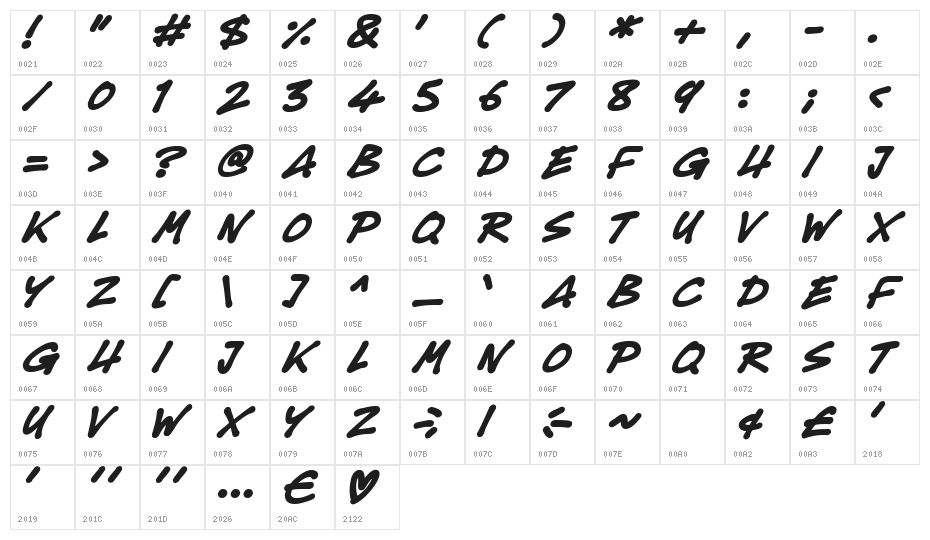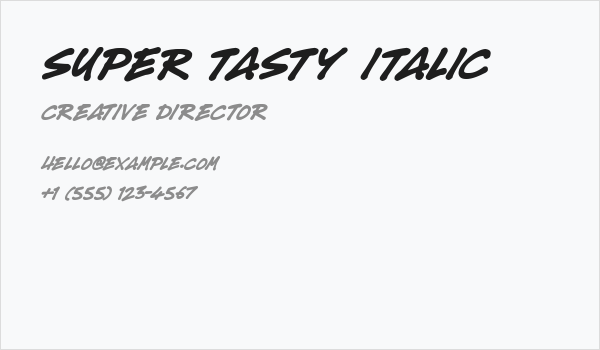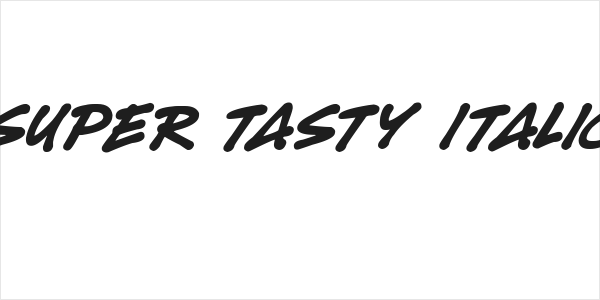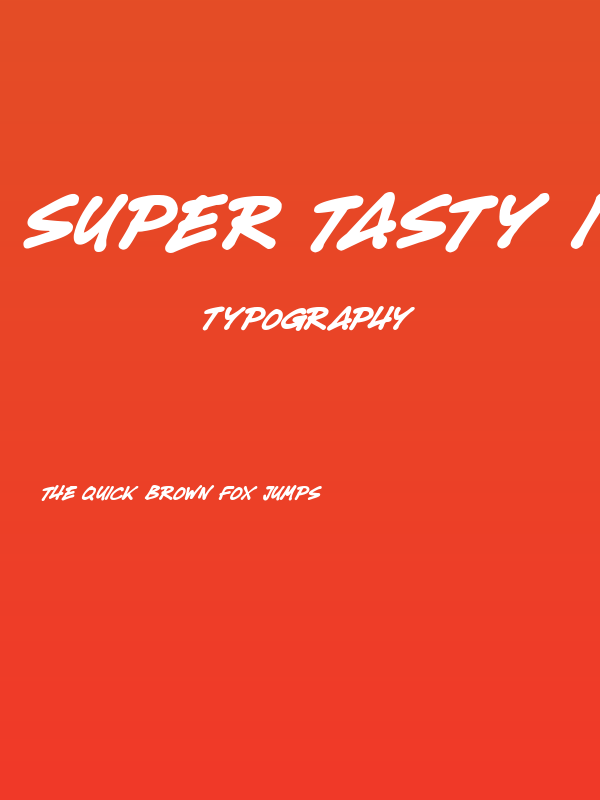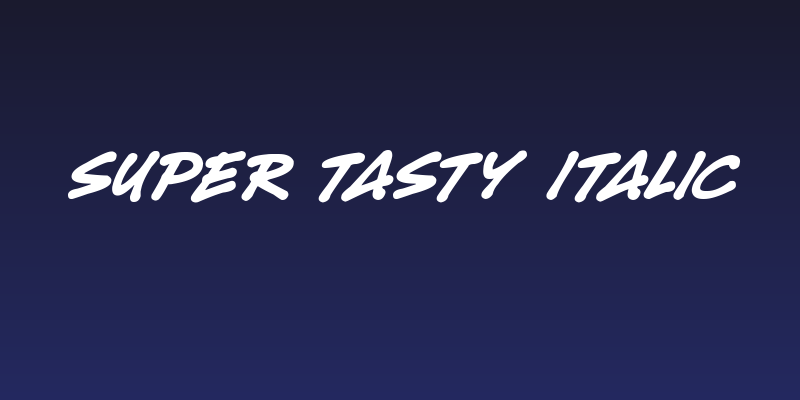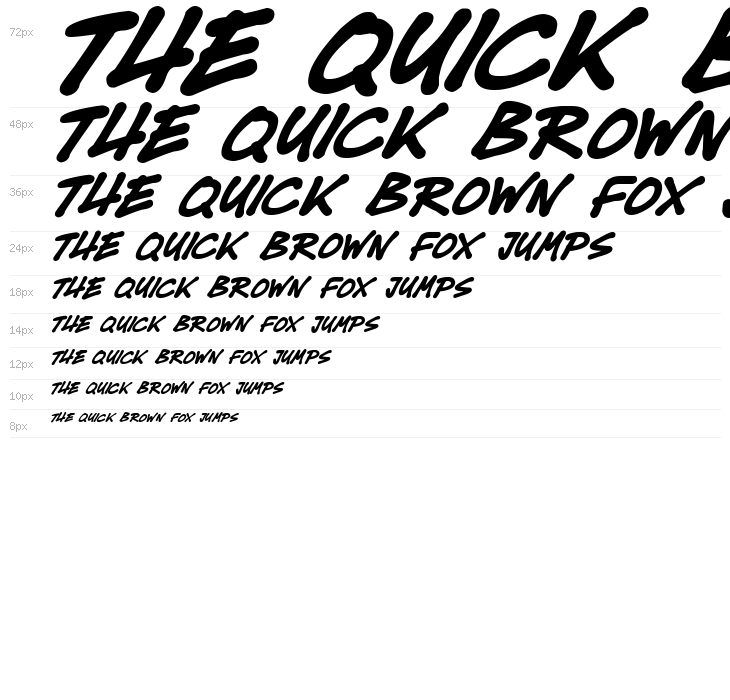
Super Tasty Italic Font
Super Tasty Italic Description
This font exudes a bold and dynamic presence with its thick, flowing strokes and italicized slant. The characters are closely spaced, creating a sense of urgency and movement. Its script-like appearance is both playful and assertive, making it ideal for attention-grabbing designs. The uppercase and lowercase letters maintain a consistent style, with rounded edges and a slight tilt that enhances its energetic feel. The numerals and special characters are equally bold, ensuring uniformity across all text elements. This font is perfect for projects that require a strong, impactful visual statement.
| Proposed Projects | Ideal for branding, advertising, posters, and any design needing a bold, energetic touch. |